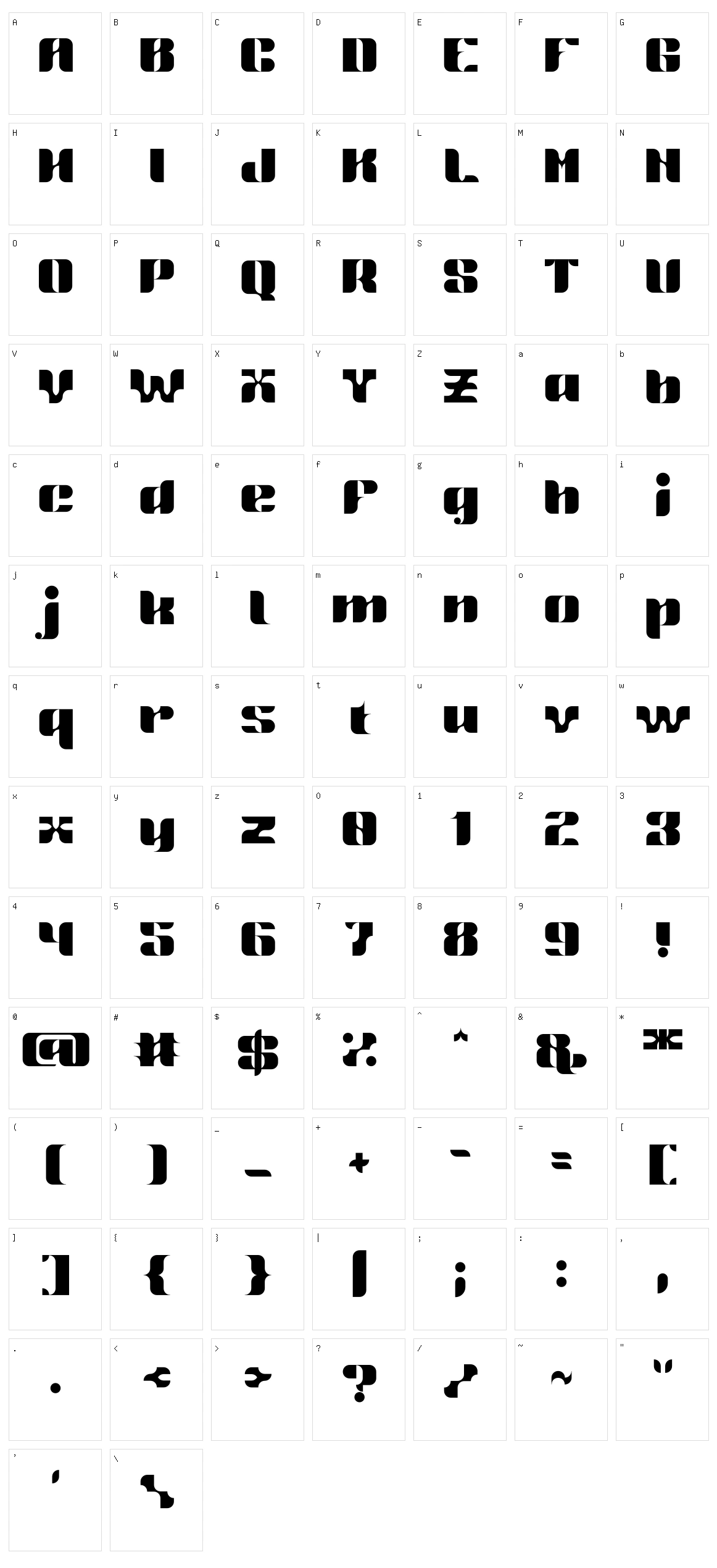
Demodulator
Demodulator is a modular variable font.
It comes in two weights, regular and bold, as well as everything in between when you use its OpenType features.